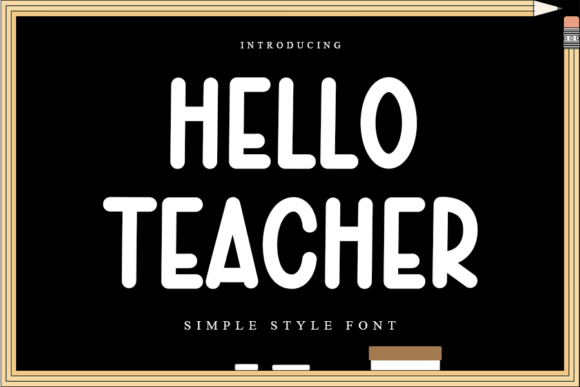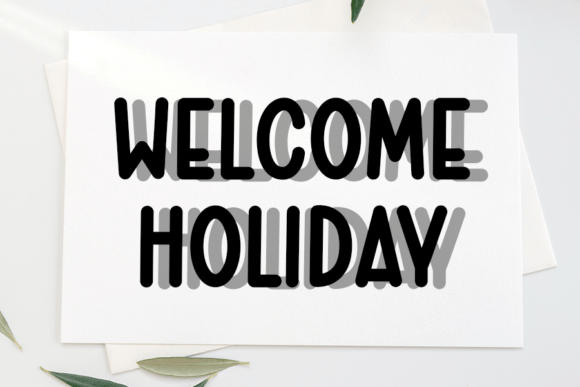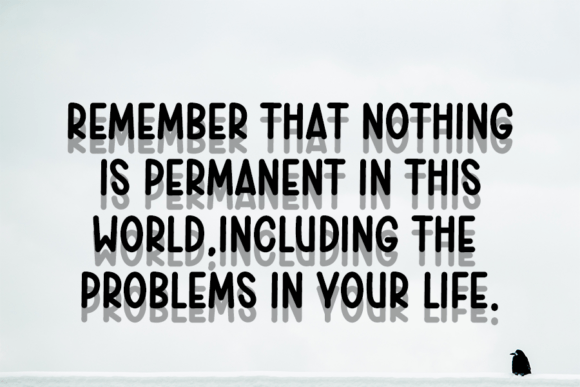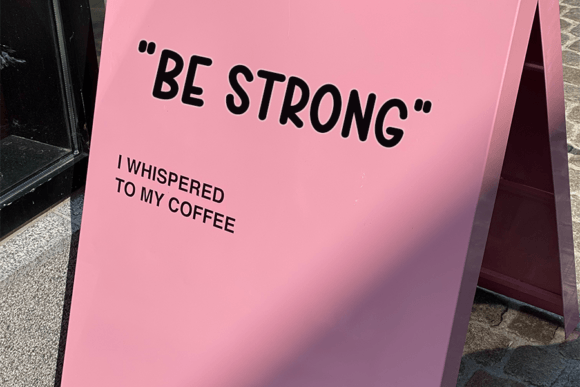
Hello Teacher Font: A Cute & Playful Sans Serif for Cricut Crafts
About the Hello Teacher Font
Crafted with precision, the Hello Teacher Font is ready to bring your ideas to life. Hello Teacher is a cool and modern and rounded sans serif font. Whether you’re using it for crafts, digital design, presentations, or making greeting cards, this font has the potential to become your favorite go-to font, no matter the occasion
Hello Teacher’s rounded forms make it ideal for headlines, short text blocks on posters, and playful branding applications where a friendly, approachable feel is desired. It works well for children’s products, educational materials, or brands emphasizing approachability. However, its lower x-height and wider letterforms make it less suitable for body text or lengthy paragraphs, or UI elements requiring high readability.
Consider pairing Hello Teacher with a clean sans-serif like Open Sans for body copy, balancing its rounded friendliness with a neutral professionalism. For a more playful feel, a script font like Pacifico could add a touch of whimsy. Alternatively, a geometric sans-serif like Montserrat could offer a sophisticated contrast.
The overall personality of Hello Teacher is approachable and modern, conveying a sense of fun and approachability without being childish. Its rounded forms give it a soft, welcoming aesthetic.
Hello Teacher Font Usage Examples
Hello Teacher Font Example